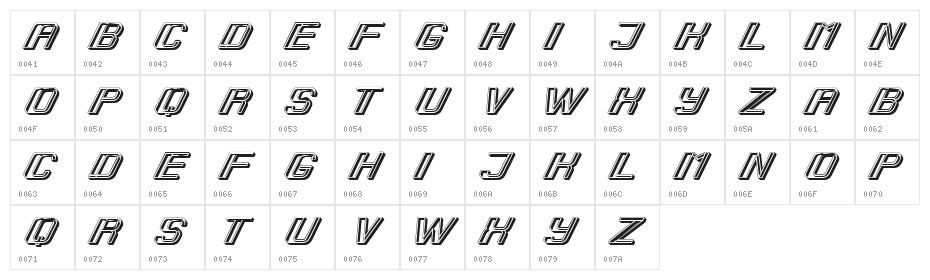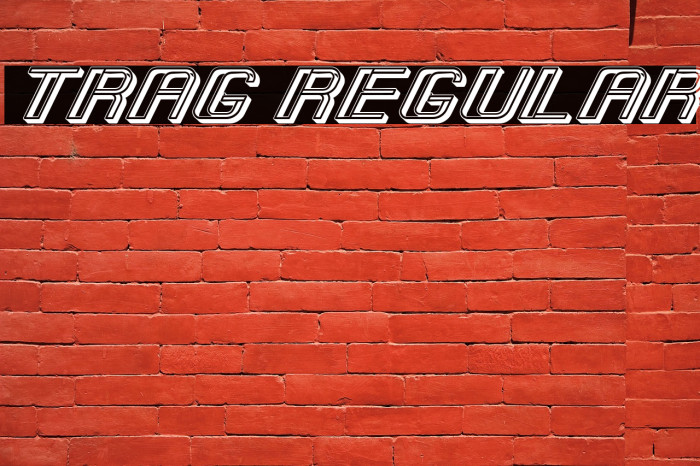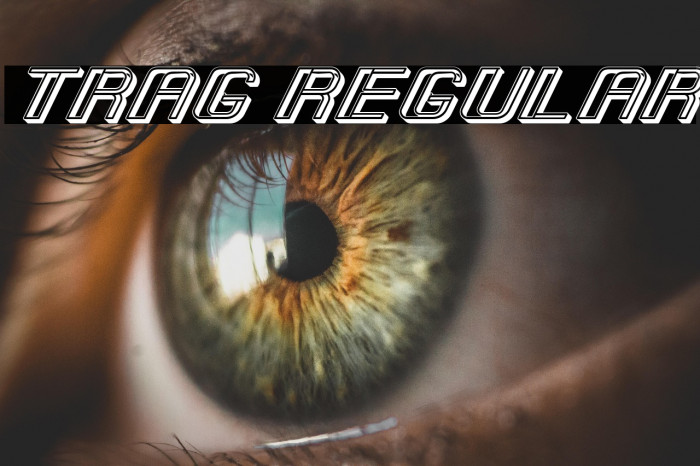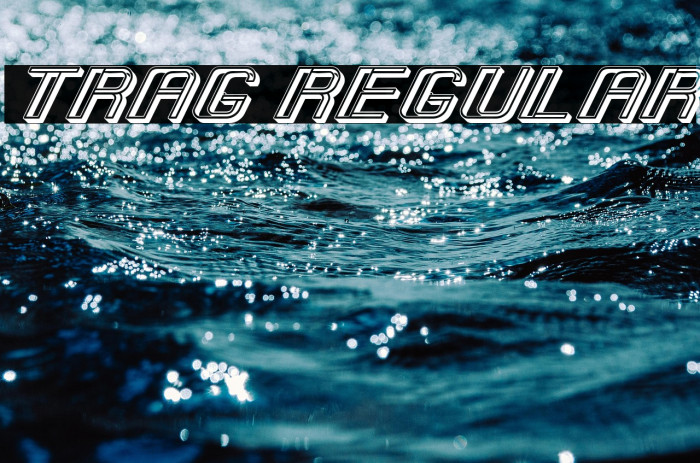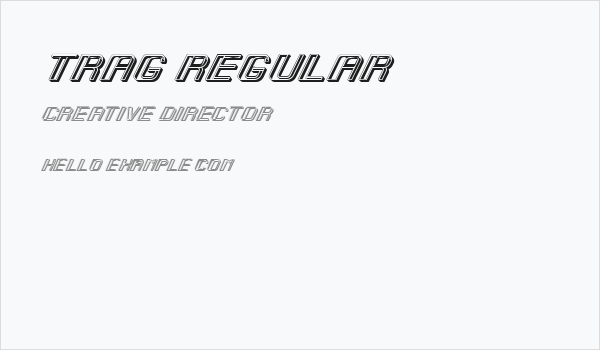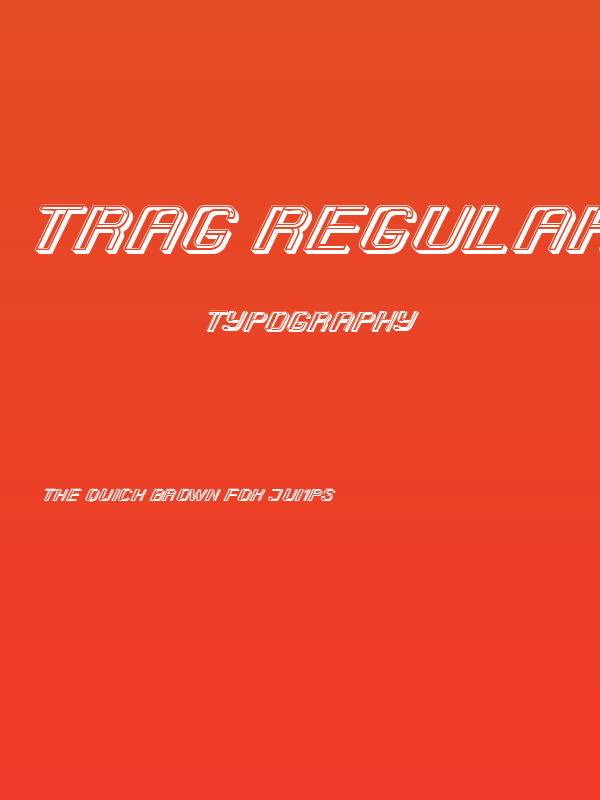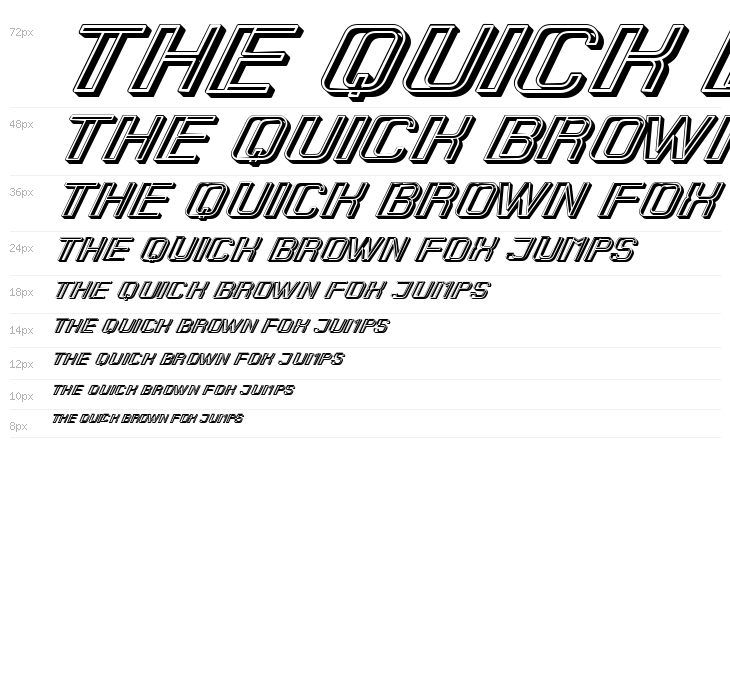
Trag Regular Font
Trag Regular Description
This font features a bold and dynamic design with a distinct three-dimensional effect. The characters are outlined with a shadow, creating a sense of depth and movement. The uppercase letters are uniform in height, with sharp angles and clean lines that give it a modern and futuristic appearance. The font's style is reminiscent of sports or automotive branding, making it ideal for projects that require a strong and impactful visual presence. The spacing between characters is normal, allowing for readability while maintaining its bold aesthetic.
| Proposed Projects | Ideal for sports branding, automotive logos, posters, and dynamic headlines. |